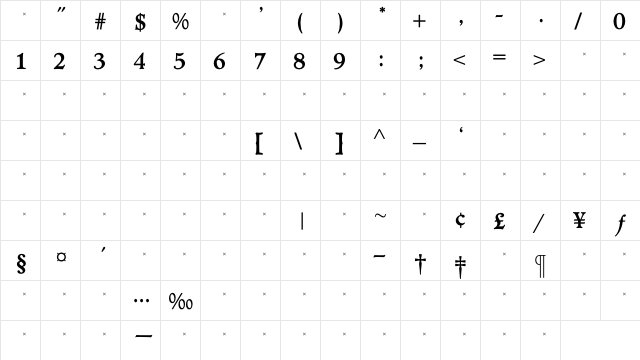
TCAdministerBoldTab Regular
Design Context for TCAdministerBoldTab Typeface
TCAdministerBoldTab is a composed and adaptable typeface that performs quietly and consistently across a wide range of design contexts. Its bold stroke weight gives it real presence on the page.